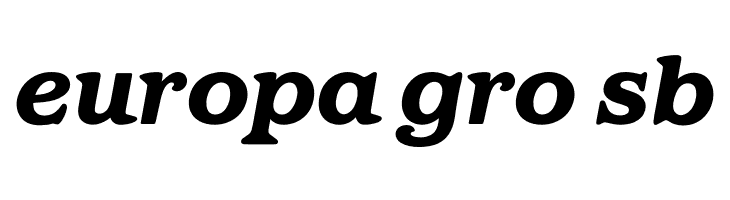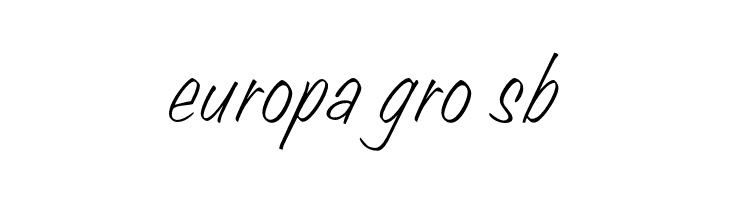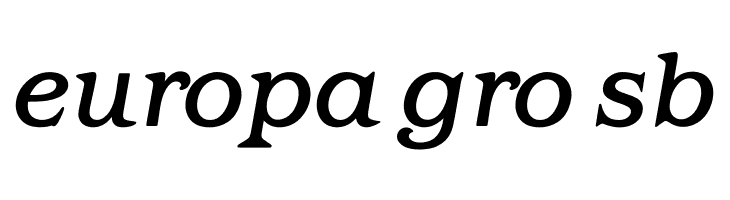
A bold, italic serif font with strong, dynamic strokes and prominent serifs.
A casual, handwritten-style font with fluid, slanted strokes.
A medium-weight, italic serif font with a classic and elegant style.